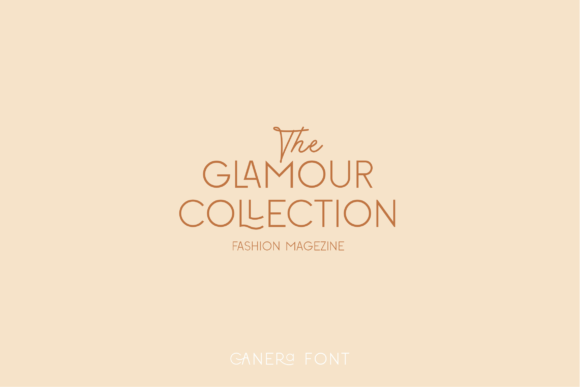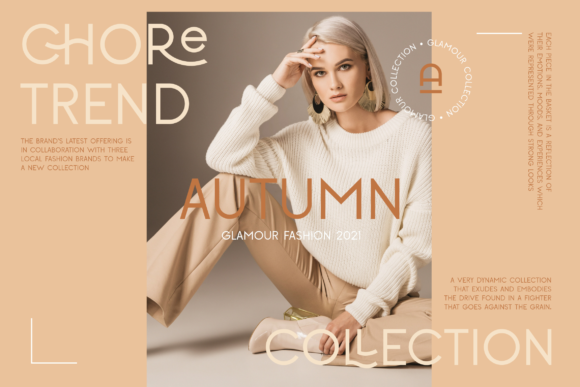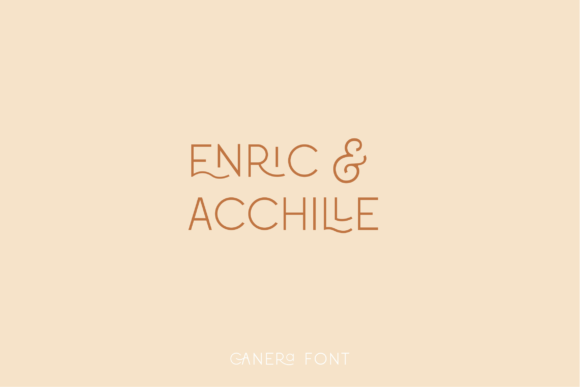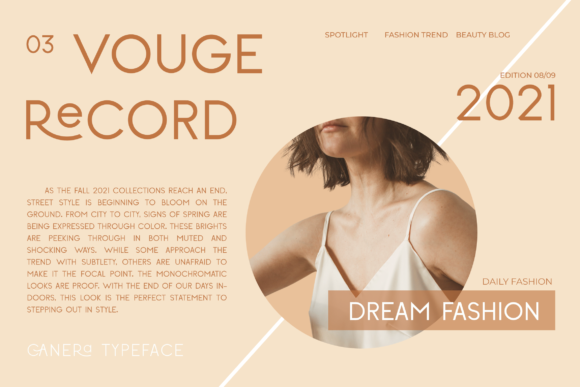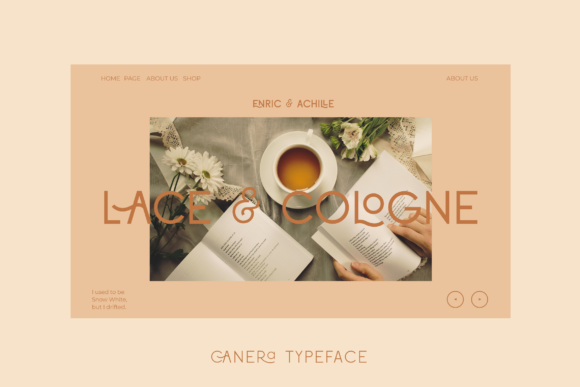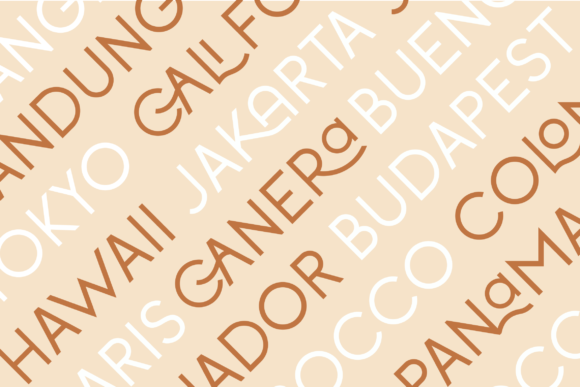
Discover the Elegance of Canera Font: A Stylish Sans Serif for Your Designs
Are you on the hunt for a font that adds a touch of sophistication and delicacy to your designs? Look no further than Canera Font, a beautiful sans serif font that is sure to elevate your work. With its clean, thin, and smooth vibe, Canera is the perfect choice for designers and crafters who want to add a dash of elegance to their projects.
What Makes Canera Font So Special?
Canera Font boasts a range of features that make it a standout in the world of typography. Here are just a few reasons why this font is a must-have for any designer or crafter:
- Clean and Smooth Design: Canera’s sleek and streamlined design makes it perfect for use in a variety of projects, from branding and packaging to digital media and print materials.
- Thin and Delicate Lines: The font’s thin and delicate lines give it a light and airy feel, making it ideal for designs that require a touch of sophistication and elegance.
- Versatile and Flexible: Canera is a versatile font that can be used in a wide range of projects, from modern and minimalist designs to more elaborate and ornate ones.
How to Use Canera Font in Your Designs
Canera Font is incredibly easy to use, even for those who are new to font design. Here are a few tips for incorporating Canera into your projects:
- Pair it with Other Fonts: Canera pairs beautifully with other fonts, making it easy to create stunning combinations that add depth and interest to your designs.
- Experiment with Swashes and Glyphs: With Canera’s PUA encoding, you can access a range of swashes and glyphs that allow you to customize your designs and add a personal touch.
- Use it for Headings and Titles: Canera’s elegant and refined design makes it perfect for use in headings and titles, where you want to make a statement and grab the reader’s attention.
- Add it to Your Digital and Print Materials: Canera is suitable for use in both digital and print materials, making it a great addition to your design toolkit.
Why Designers and Crafters Love Canera Font
Canera Font has quickly become a favorite among designers and crafters, and it’s easy to see why. Here are just a few reasons why this font has won the hearts of so many:
- Elegant and Refined: Canera’s elegant and refined design makes it perfect for designers and crafters who want to add a touch of sophistication to their work.
- Versatile and Flexible: Canera is a versatile font that can be used in a wide range of projects, from modern and minimalist designs to more elaborate and ornate ones.
- High-Quality Design: Canera is a high-quality font that is designed to deliver exceptional results. Its smooth and clean lines ensure that your designs look professional and polished.
In conclusion, Canera Font is a stylish and delicate sans serif font that is sure to become a staple in your design toolkit. With its clean, thin, and smooth vibe, Canera is perfect for designers and crafters who want to add a touch of elegance and sophistication to their work. Its PUA encoding makes it easy to use and customize, and its versatility and flexibility ensure that it can be used in a wide range of projects. So why wait? Discover the elegance of Canera Font today and take your designs to the next level!